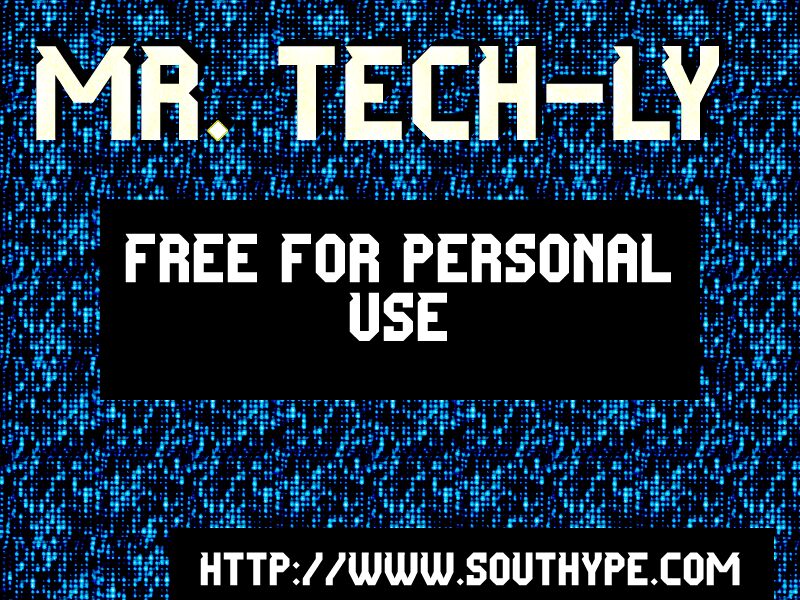
Mr Tech-Ly St radiates a striking techno-inspired aesthetic, with its condensed letterforms and bold, angular strokes. Designed by Southype, this display font exudes a sense of futuristic sophistication, making it an excellent choice for various digital and print applications, from eye-catching headlines to impactful branding.
The font's unique character shapes and condensed width lend it a sleek, modern flair, perfect for conveying a sense of technological innovation or industrial chic. Its versatility shines in applications ranging from vibrant event promotions to dynamic user interfaces, where its bold, attention-grabbing presence can truly shine.